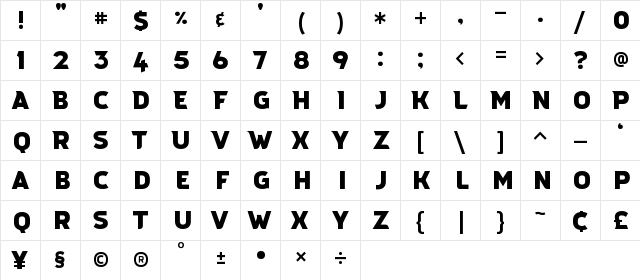
Ustulo Display Regular
Design Context for Ustulo Display Typeface
Ustulo Display is built around its visual character rather than neutral utility — its distinctive forms are designed to make an impression at display sizes.
Font Pairing: Pair with a clean neutral sans-serif for body copy to let Ustulo Display's character lead without overwhelming the composition.
Pro Tip: Treat Ustulo Display as the centrepiece of your typographic hierarchy. One strong heading set in a decorative face can carry an entire layout.